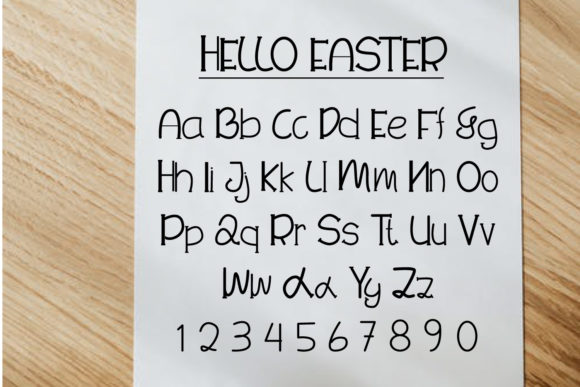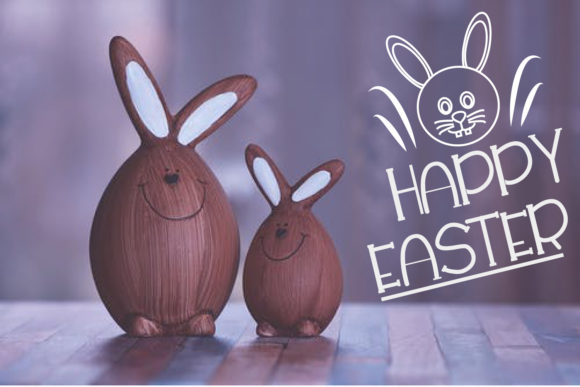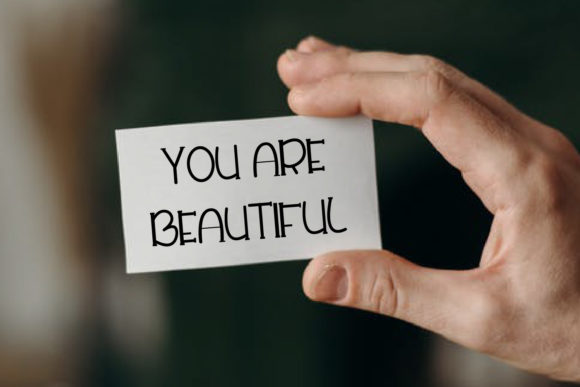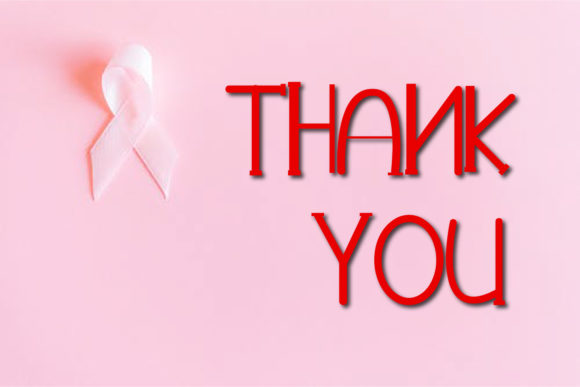
About Hello Easter Font
Hello Easter is a delightful and friendly handwritten font that brings a playful and quirky touch to your designs. With its unique style and charming character, this font is a perfect fit for various creative projects such as logos, branding, posters, and crafty DIY projects.
The handwritten nature of Hello Easter adds a personal and authentic feel to your designs. It has a natural and organic flow, creating a sense of warmth and friendliness. Whether you’re designing a logo for a creative business, creating eye-catching posters, or working on fun DIY projects, Hello Easter will bring a joyful and whimsical vibe to your work.
The playful elements of Hello Easter make it a great choice for designs targeting a younger audience or projects that require a lighthearted and fun atmosphere. Its quirky style adds a touch of individuality and creativity, making it stand out from more traditional fonts. Use Hello Easter to infuse your designs with a sense of joy, happiness, and playfulness.
The versatility of Hello Easter allows it to be used across various mediums and platforms. It works well in both digital and print formats, making it suitable for social media graphics, website design, stationery, and more. Its friendly appearance and legibility make it easily readable, ensuring that your message comes across clearly.
Whether you’re creating a logo that needs a touch of personality or designing posters that require a playful twist, Hello Easter is a font that will bring your ideas to life. Embrace its cuteness and quirkiness, and let it add a touch of charm to your designs.
In summary, Hello Easter is a cute and friendly handwritten font that is perfect for logos, branding, posters, and crafty DIY projects. Its playful and quirky style adds a sense of joy and individuality to your designs, making them stand out. Embrace the charm of Hello Easter and let your creativity flourish with this delightful font.